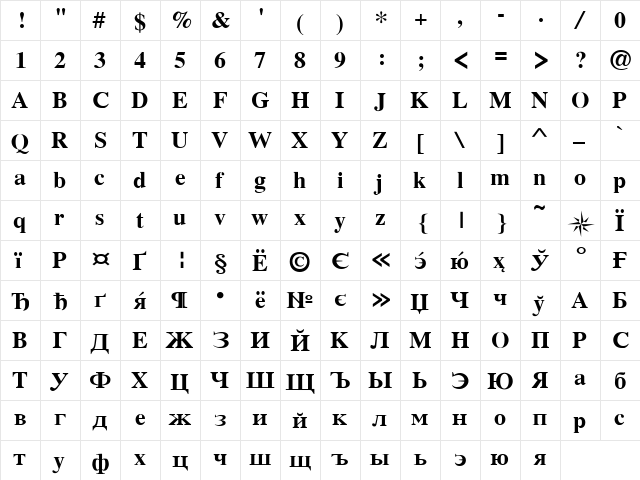
CyrillicTimes Bold
Design Context for CyrillicTimes Typeface
CyrillicTimes takes a measured approach to typography — its balanced proportions and neutral character make it a reliable workhorse for both digital and print work. The heavy weight commands attention and anchors typographic hierarchies.